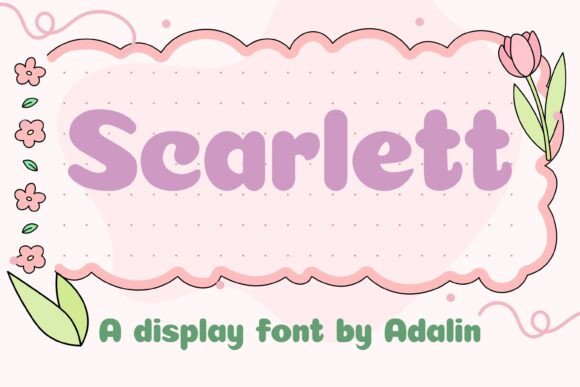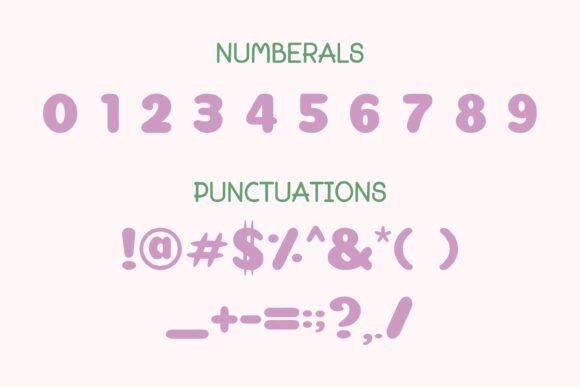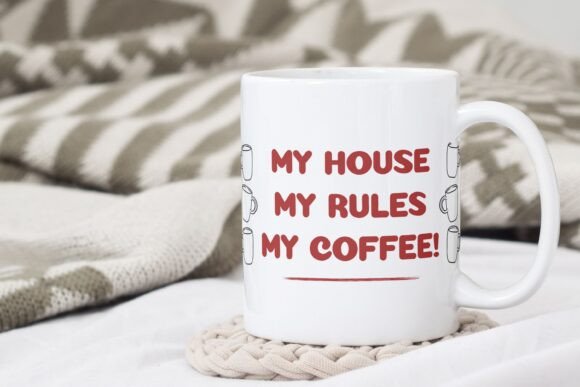
Scalett Font: A Cute Display Font for Playful Logo Design & Crafting
About the Scalett Font
Get ready to be inspired by Scalett Font, a fresh and dynamic typeface for modern creators. Scarlett is a sweet and playful display font that radiates charm and friendliness. Its soft rounded edges and bubbly character shapes make it ideal for children’s projects, product packaging, birthday invitations, and fun logo designs. With a whimsical yet readable style, Scarlett brings a joyful and approachable personality to any creative idea.
Scalett Font Usage Examples
Scalett Font Example